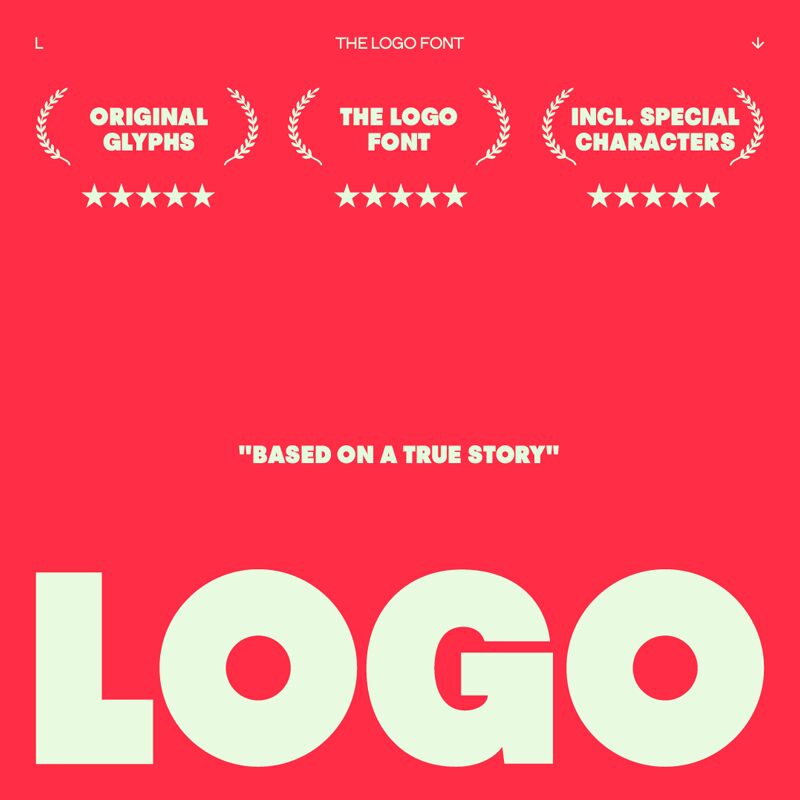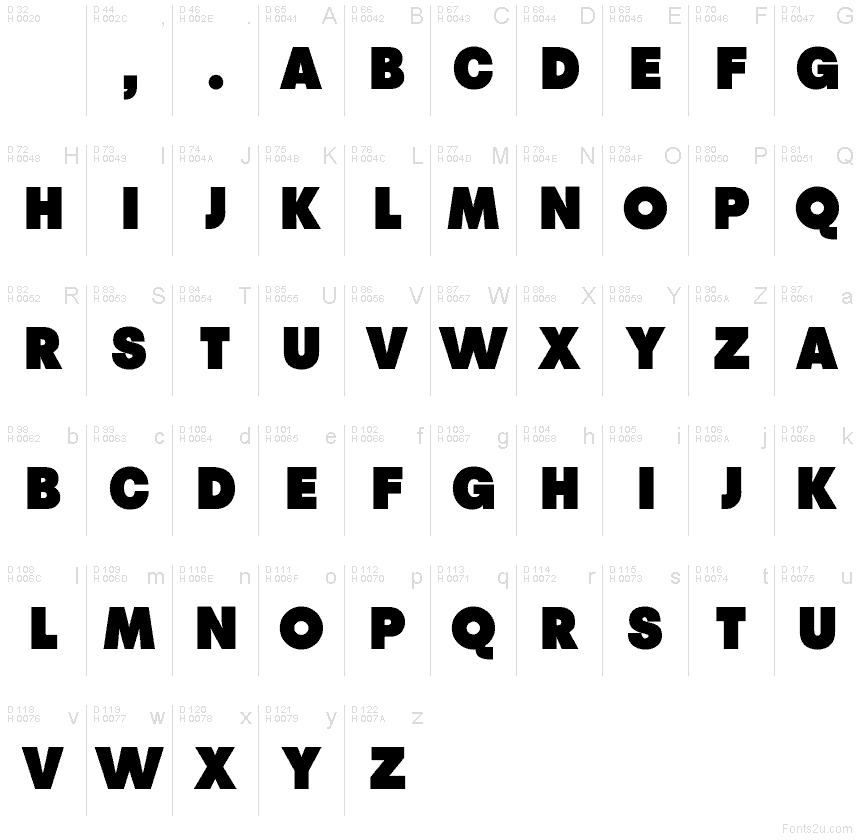
THE LOGO FONT DEMO
The Logo Font font by Sven Pels is a free bold sans serif typeface created to turn short words into strong, stamp-like marks. Its chunky, straight-sided letters and tight rhythm lock together like a solid block, giving logos and titles a confident, no-nonsense presence. The flat tops and squared curves feel industrial yet friendly, with enough weight to hold up in tiny favicon sizes or on a giant billboard.
Using The Logo Font, you can build punchy wordmarks, startup logos, product badges, esports branding, YouTube channel art, and bold poster headlines. This free font thrives on short, memorable names and punchy taglines; set it large with generous spacing for a more premium feel. For longer text or UI copy, pair The Logo Font with a clean, lighter grotesque sans to keep the branding system cohesive and readable.